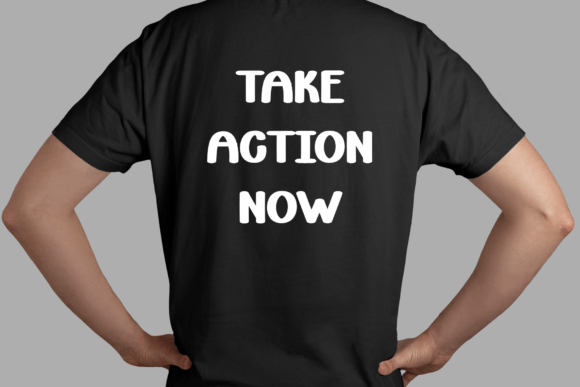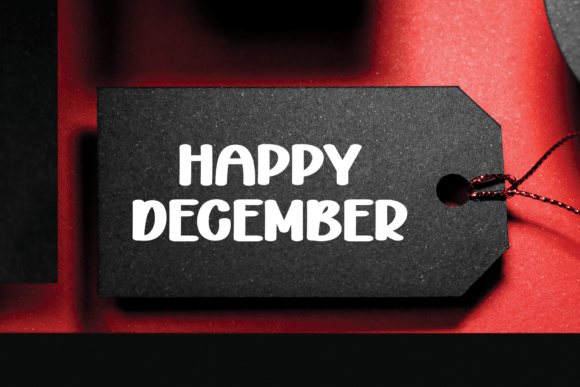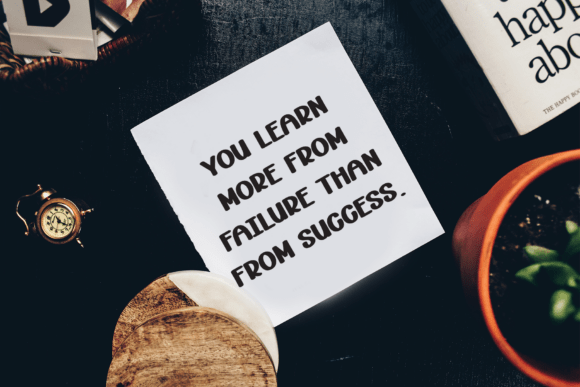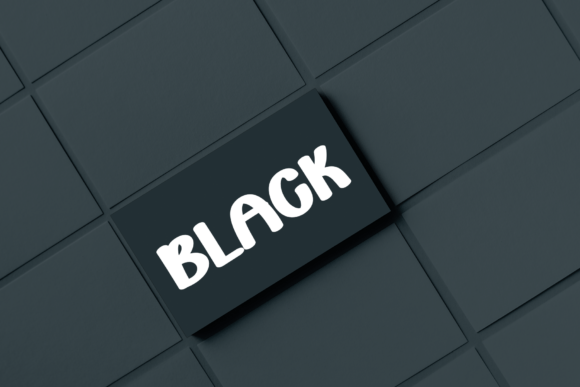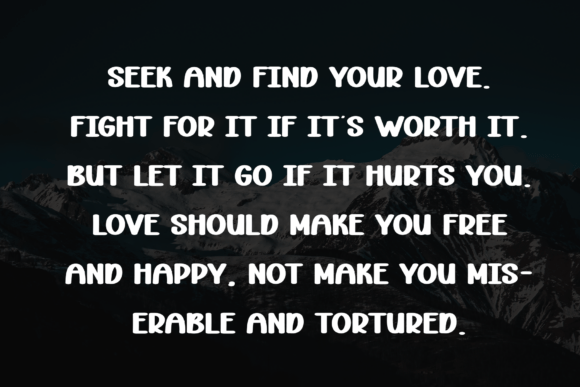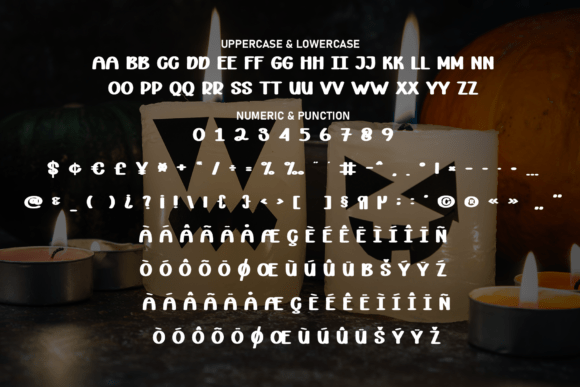
Candle Halloween Font: Add a Touch of Whimsy to Your Designs
Are you looking for a font that can add a touch of sweetness and warmth to your designs? Look no further than the Candle Halloween Font. This charming handwritten display font is perfect for designers and crafters who want to create unique and eye-catching projects. In this article, we’ll take a closer look at the Candle Halloween Font and explore its features, benefits, and uses.
What is Candle Halloween Font?
The Candle Halloween Font is a beautifully crafted handwritten display font that exudes sweetness and warmth. It’s a unique and delightful font that’s perfect for adding a touch of whimsy to your designs. Whether you’re creating wedding invitations, heartfelt cards, or any other design that requires a personal touch, this font is flawlessly suited to make your project stand out.
Features of Candle Halloween Font
The Candle Halloween Font has several features that make it a standout font for designers and crafters. Some of its key features include:
- Handwritten style: The font has a beautiful handwritten style that’s perfect for creating personal and emotional designs.
- Sweet and warm: The font exudes sweetness and warmth, making it perfect for designs that require a touch of whimsy and charm.
- Cute and fun: The font is delightfully cute and brimming with fun, making it perfect for designs that require a playful touch.
- Versatile: The font is versatile and can be used for a wide range of designs, including wedding invitations, cards, and other creative projects.
Benefits of Using Candle Halloween Font
There are several benefits to using the Candle Halloween Font in your designs. Some of the benefits include:
- Unique designs: The font allows you to create unique and eye-catching designs that stand out from the crowd.
- Emotional connection: The font’s handwritten style and sweet and warm tone help create an emotional connection with your audience.
- Time-saving: The font saves you time and effort, allowing you to focus on other aspects of your design.
Uses of Candle Halloween Font
The Candle Halloween Font can be used for a wide range of designs, including:
- Wedding invitations: The font is perfect for creating beautiful and unique wedding invitations that set the tone for the big day.
- Cards: The font is great for creating heartfelt cards for special occasions, such as birthdays, anniversaries, and holidays.
- Creative projects: The font can be used for a wide range of creative projects, including scrapbooking, journaling, and mixed media art.
Tips for Using Candle Halloween Font
Here are some tips for using the Candle Halloween Font in your designs:
- Experiment with different sizes: The font looks great in different sizes, so experiment with different sizes to find the one that works best for your design.
- Pair with other fonts: The font pairs well with other fonts, so try pairing it with a sans-serif font for a unique look.
- Use for headings and titles: The font is perfect for headings and titles, so use it to add a touch of whimsy to your design.
In conclusion, the Candle Halloween Font is a charming handwritten display font that’s perfect for designers and crafters who want to add a touch of sweetness and warmth to their designs. With its unique features, benefits, and uses, this font is a must-have for anyone looking to create unique and eye-catching projects. So why wait? Download the Candle Halloween Font today and start creating designs that are truly special.